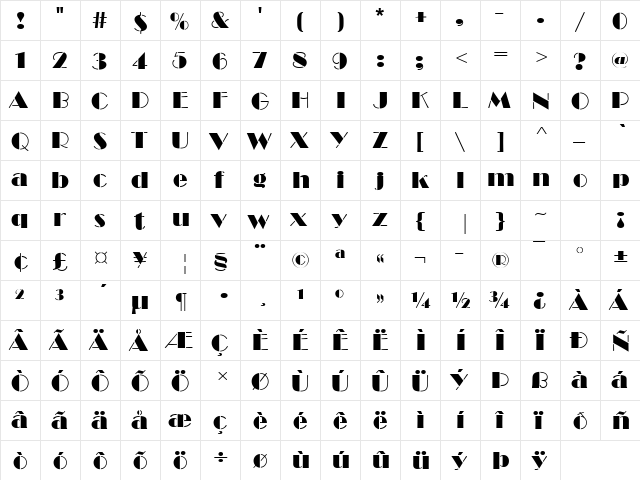
Broadway Becker Stencil Regular
Design Context for Broadway Becker Stencil Typeface
Broadway Becker Stencil borrows the utilitarian aesthetic of stencil lettering, with its characteristic cutaways and no-frills construction lending an industrial edge.
Ideal for industrial branding, streetwear, military-adjacent aesthetics, and urban signage projects.
Pro Tip: Pair Broadway Becker Stencil with raw, utilitarian design elements — exposed concrete textures, flat colour, and minimal ornamentation suit it well.